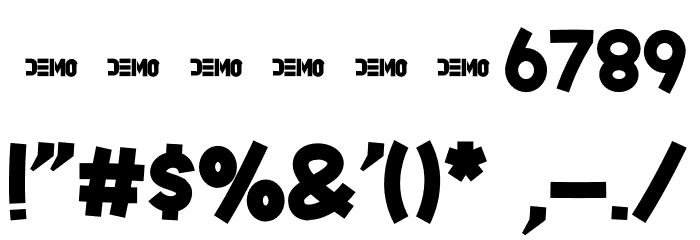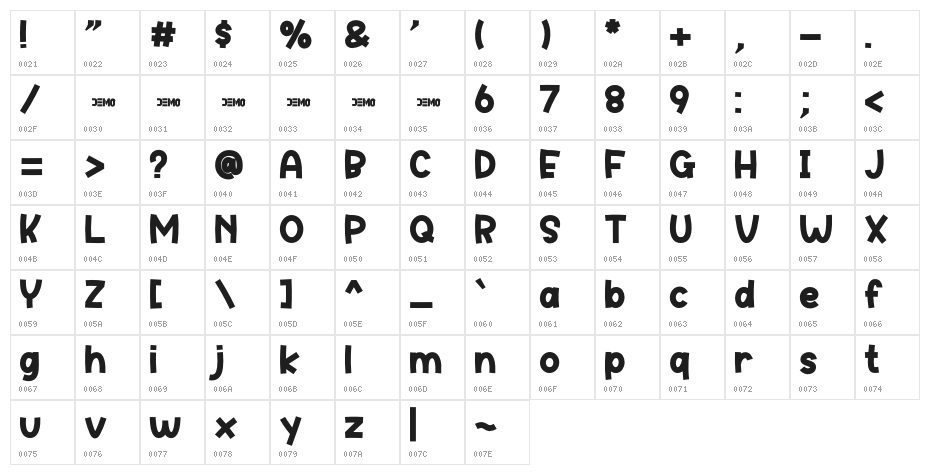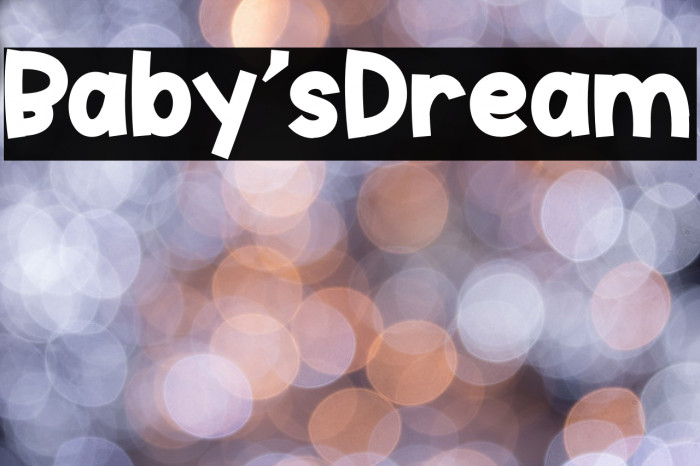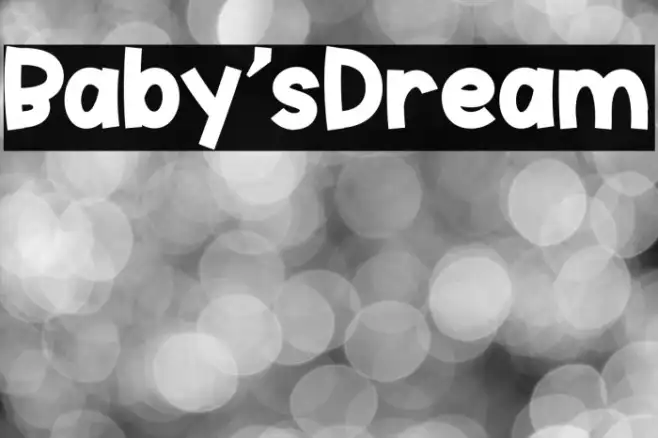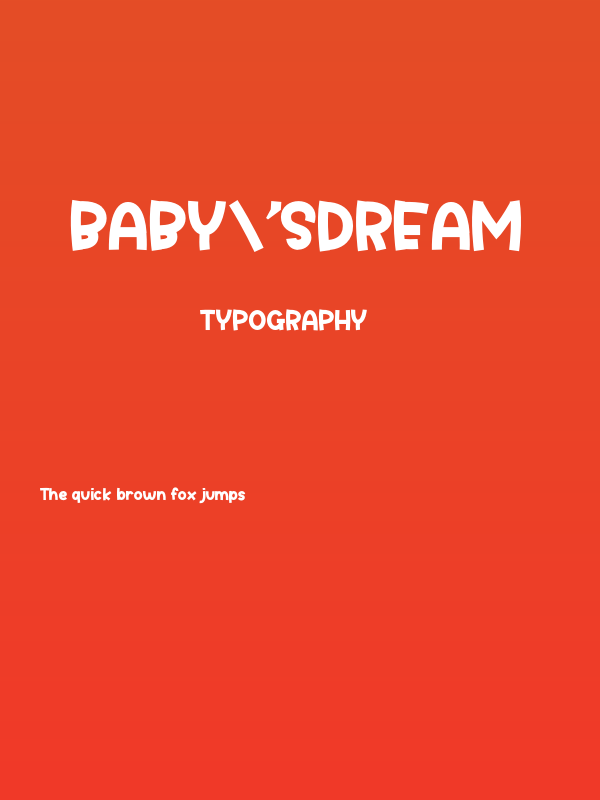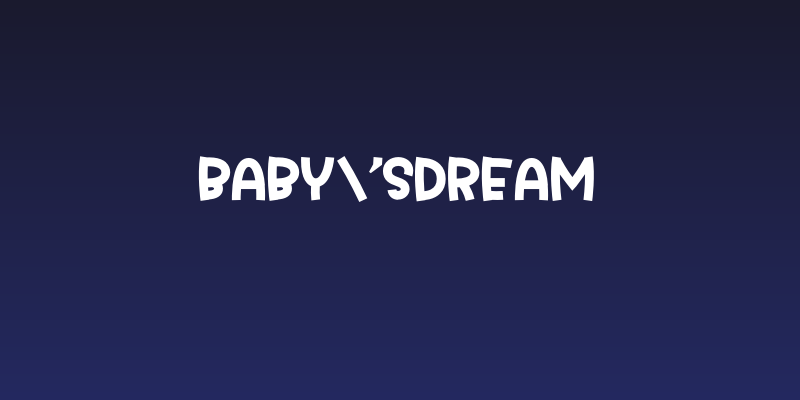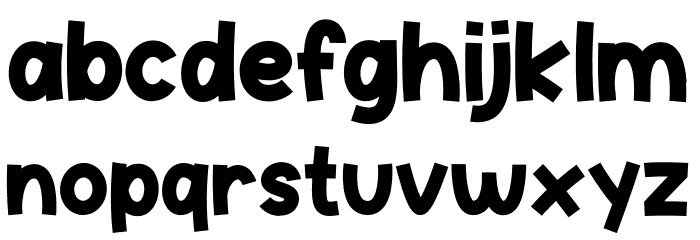
Baby'sDream Font
Baby'sDream Description
This playful and whimsical font features bold, rounded characters with a slightly irregular baseline, giving it a lively and dynamic appearance. The uppercase and lowercase letters maintain a consistent style, with a friendly and approachable feel. The numbers and special characters are equally bold and expressive, making them stand out. The font's overall design is reminiscent of hand-drawn lettering, adding a touch of personality and charm. Its thick strokes and rounded edges make it highly legible, even at smaller sizes, while the playful curves and angles add a sense of fun and creativity.
| Proposed Projects | Ideal for children's books, playful branding, posters, and greeting cards. |